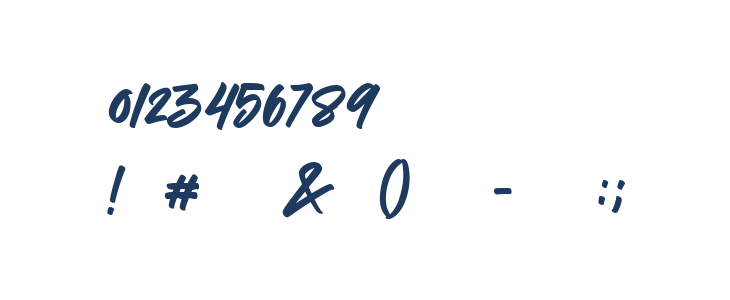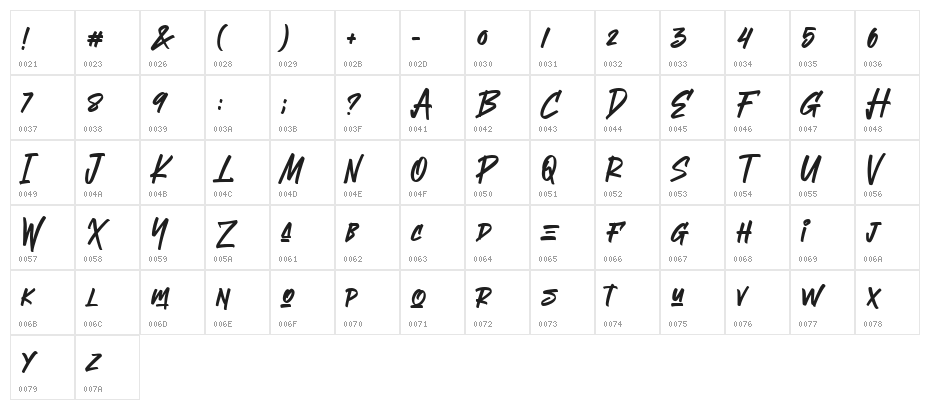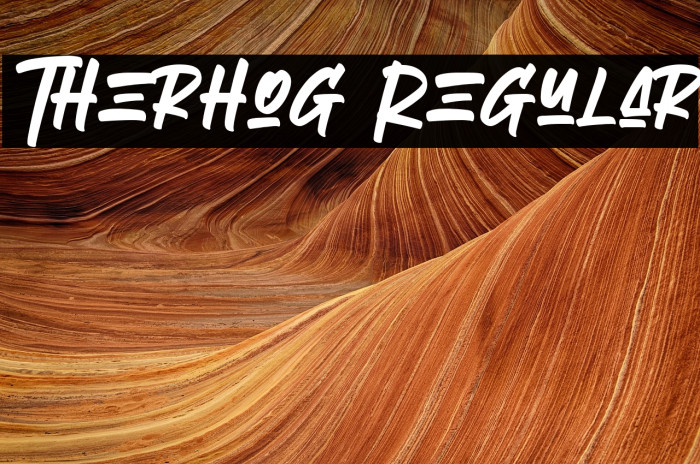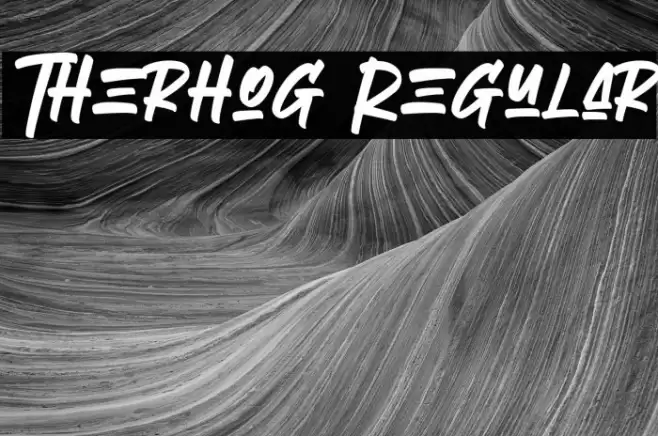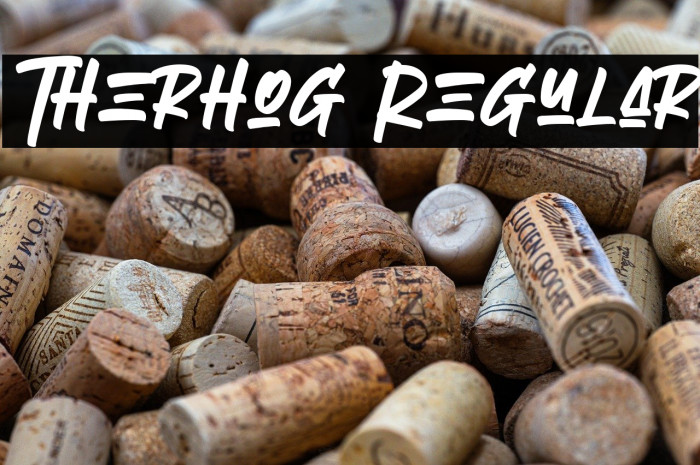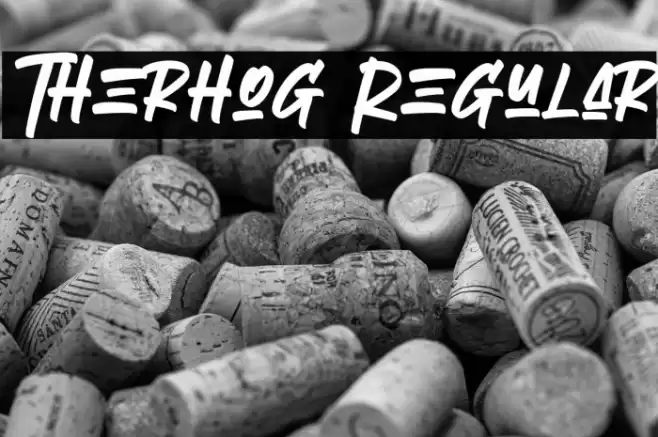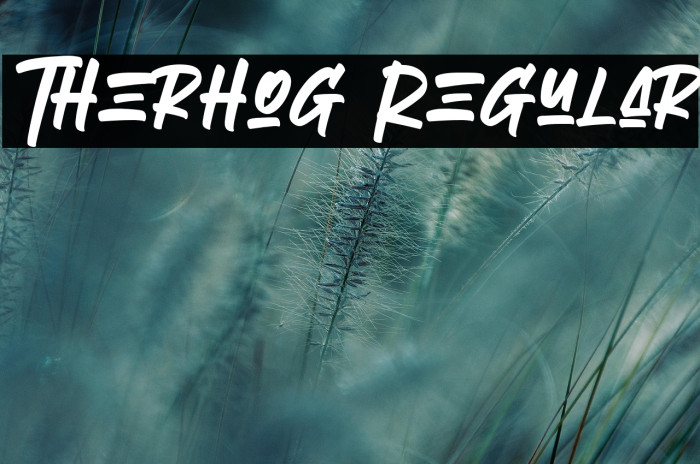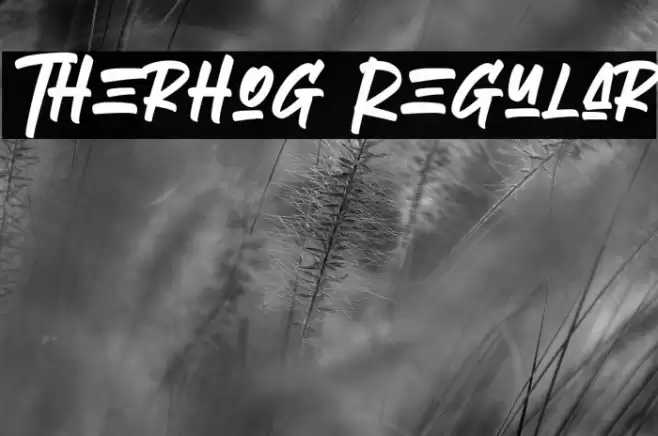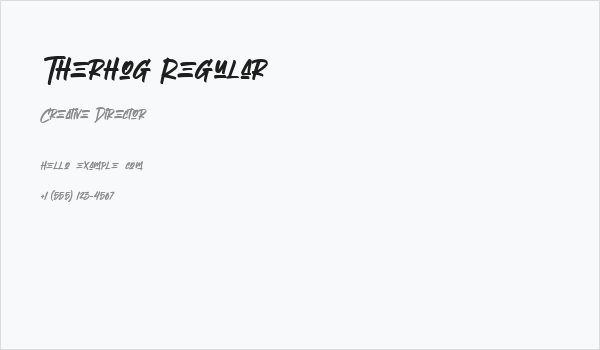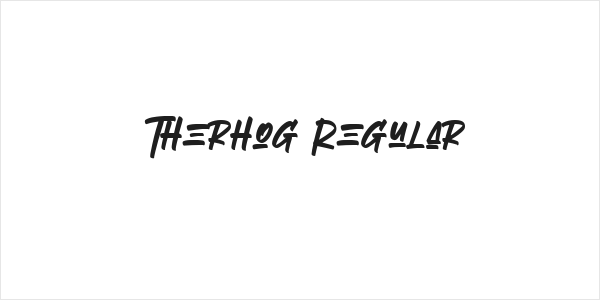
Therhog Regular Font
Therhog Regular Description
This font features a bold, energetic script style with a dynamic and flowing appearance. The characters are slightly slanted, giving a sense of motion and liveliness. The strokes are thick and consistent, providing a strong visual impact. The uppercase and lowercase letters maintain a cohesive style, with some letters having unique flourishes that add character. The numbers and special characters are designed to match the overall aesthetic, ensuring uniformity across all glyphs. This font is ideal for projects that require a bold and expressive touch.